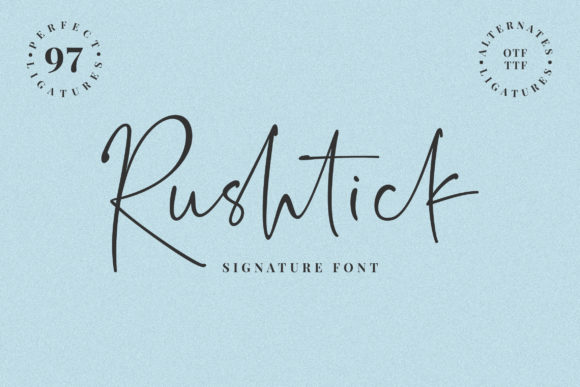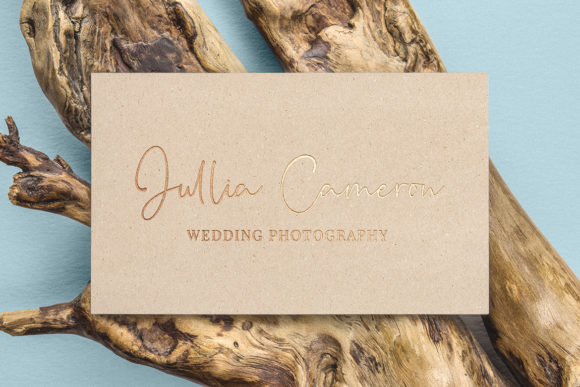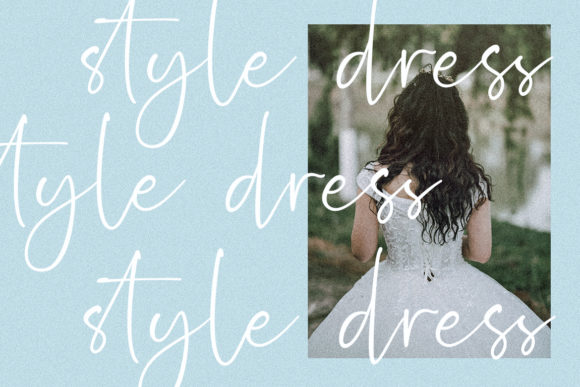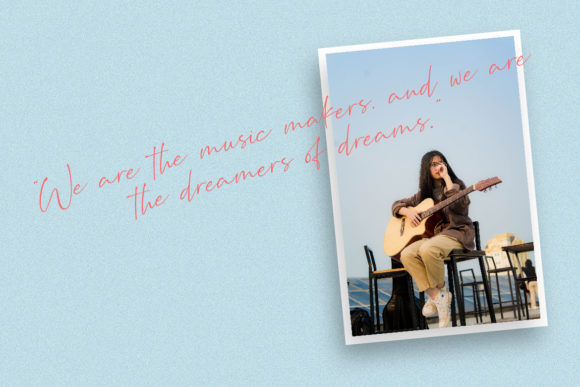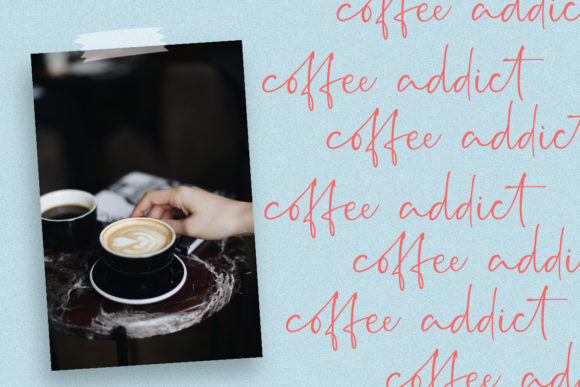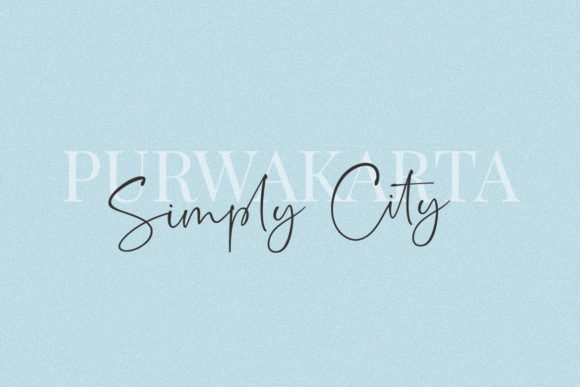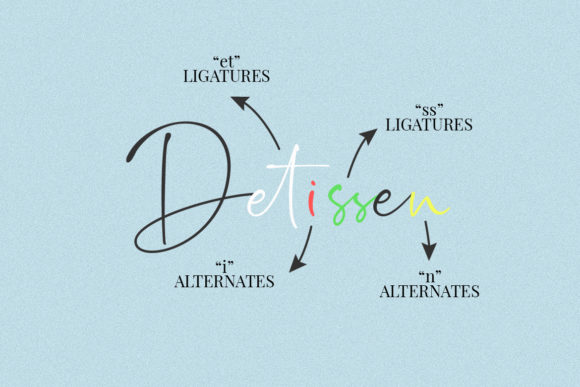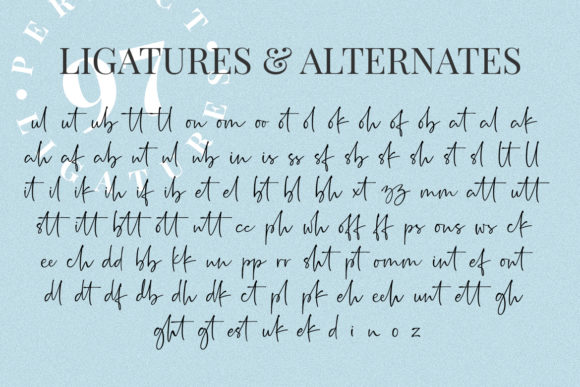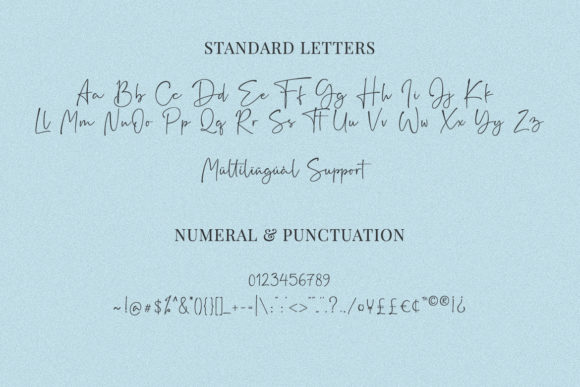
HomeScript FontsRushtick Font Script Fonts Rushtick Font FacebookXPinterestWhatsApp Rushtick Font Poster 2 Rushtick Font Poster 3 Rushtick Font Poster 4 Rushtick Font Poster 5 Rushtick Font Poster 6 Rushtick Font Poster 7 Rushtick Font Poster 8 Rushtick Font Poster 9 About Rushtick Font Rushtick is a beautiful and light handwritten font with a unique feel. Get inspired by its elegant and smart feel! DOWNLOAD NOW People also explored Lucy Warrent Font Abruptly Font Cocoa Beach Font Talliya Font Sturgeon Marine Font Formelove Font Asfrogas Font Keratin Smooth Font 451 0 TagsRushtick Font Previous articleBonjour FontNext articleSinestta Font LEAVE A REPLY Cancel reply Comment: Please enter your comment! Name:* Please enter your name here Email:* You have entered an incorrect email address! Please enter your email address here Website: Save my name, email, and website in this browser for the next time I comment. Personal Use Free Huntry Personal Use Free Read more about this font Oatmeal Personal Use Free Read more about this font Angelia Personal Use Free Read more about this font Lumber Personal Use Free Read more about this font BLOG Top 10 Handwritten Fonts That Elevate Your Designs Top 10 Handwritten Fonts That Will Elevate Your Designs Handwritten fonts bring a warm, personal touch to every creative project. Whether you're designing logos, invitations,... Free Fonts Risk: Why Free Fonts Can Be Dangerous for Designers Fonts That Capture the Spirit of New York City Top 7 Google Fonts Alternatives for Faster and Privacy-Friendly Web Design (2025)